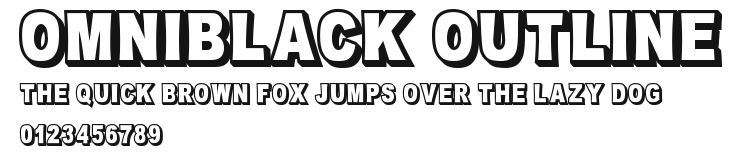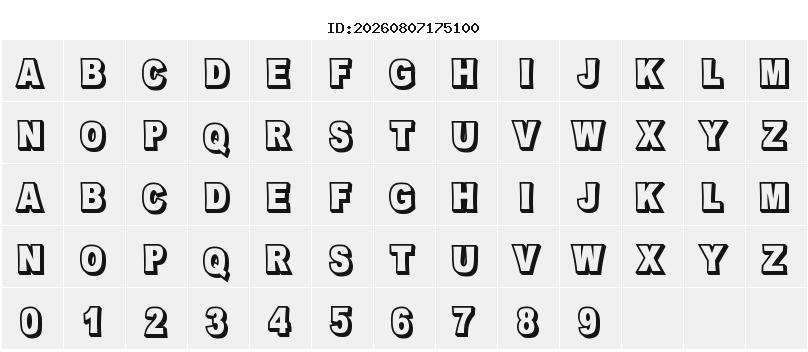
• Designer: Mehmet Abaci
About OMNIBLACK Outline.otf
OMNIBLACK Outline.otf is a modern, elegant sans-serif font designed for ultimate readability and visual harmony. Perfect for branding, headlines, web design, and print materials.